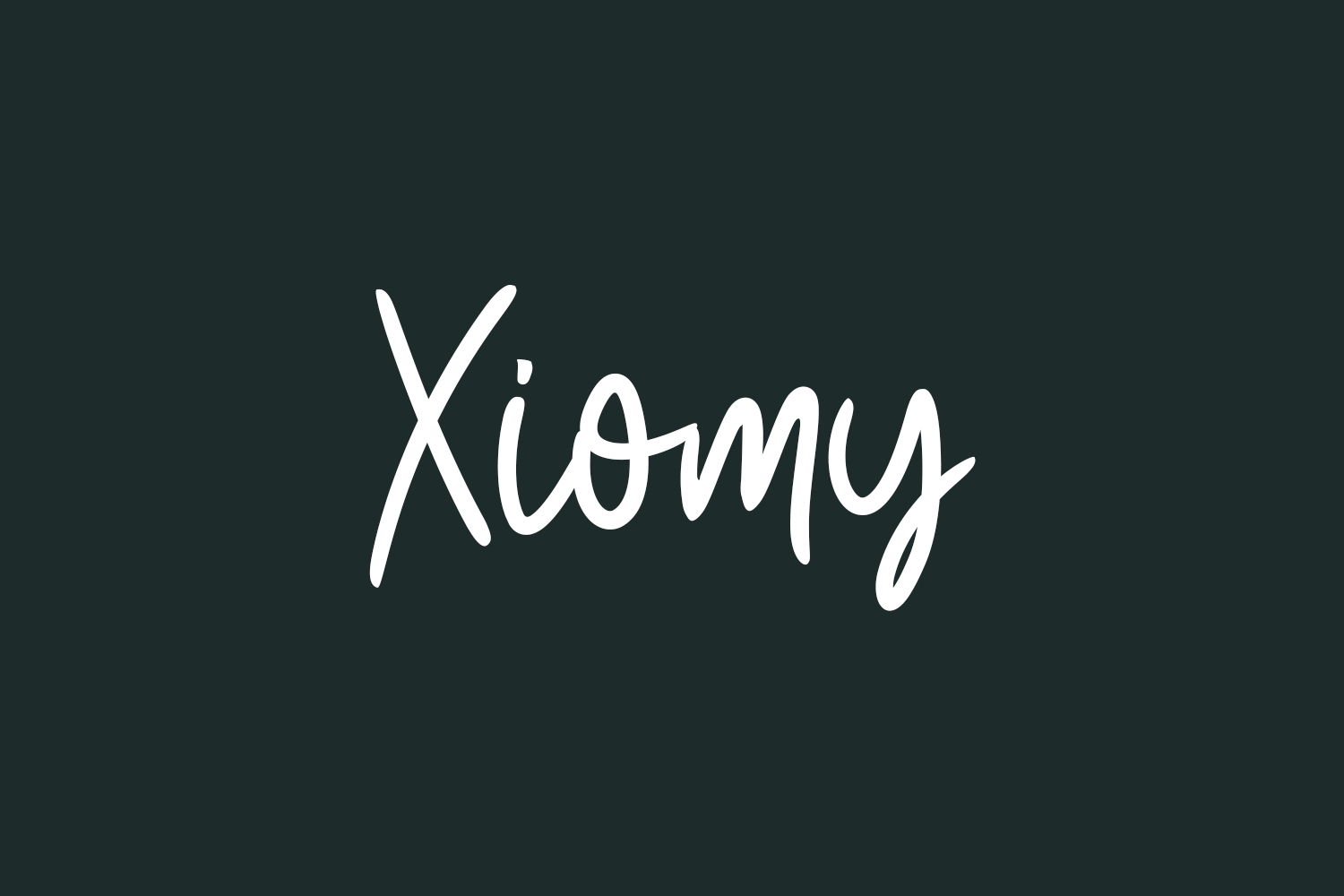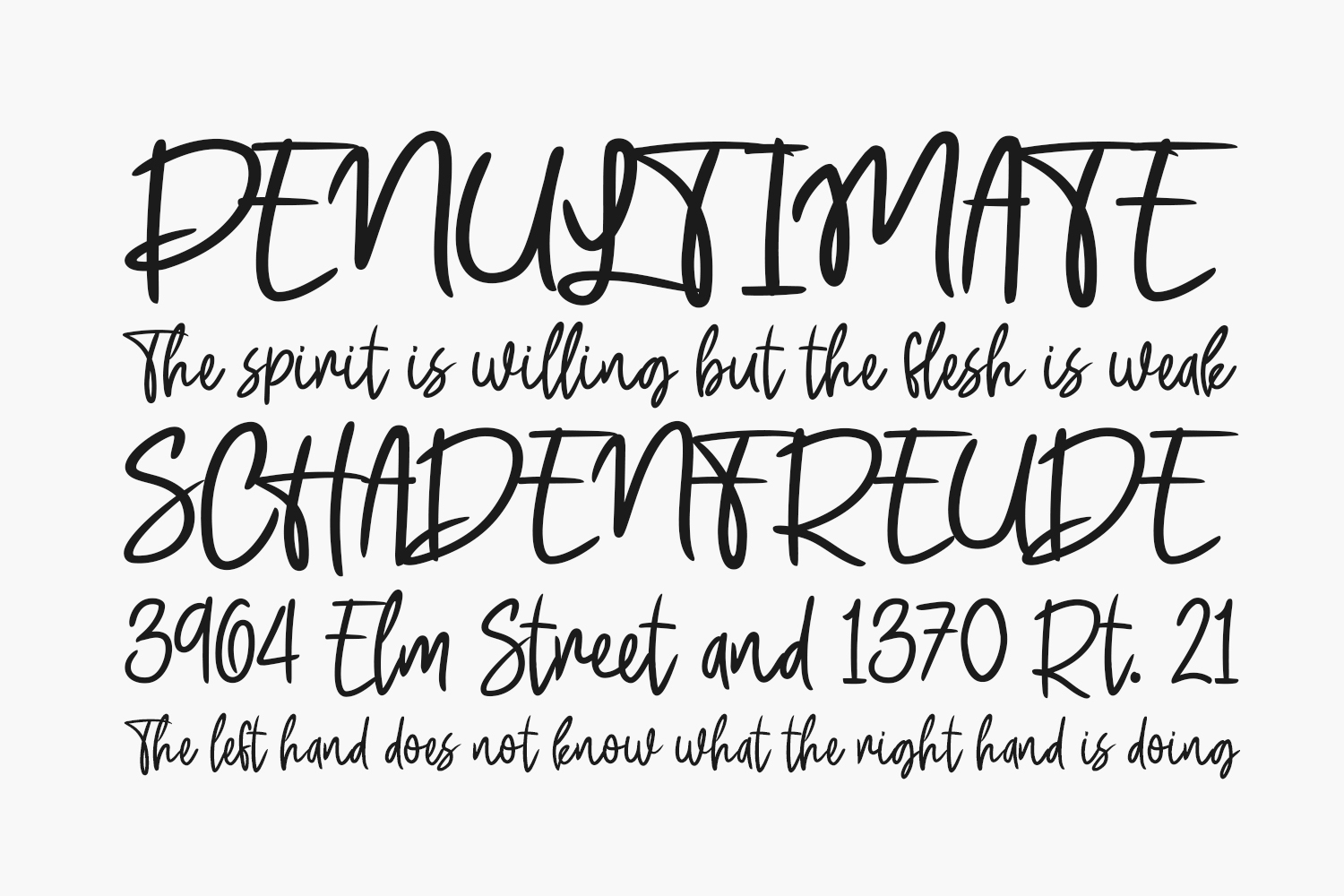
Xiomy Free Font is a stylish and relaxed script font, ideal for elevating your branding efforts such as logos, t-shirt designs, creative products, and beyond. Its versatility allows it to shine in a range of contexts, making it a standout choice for any project.
Designed by Don Marciano